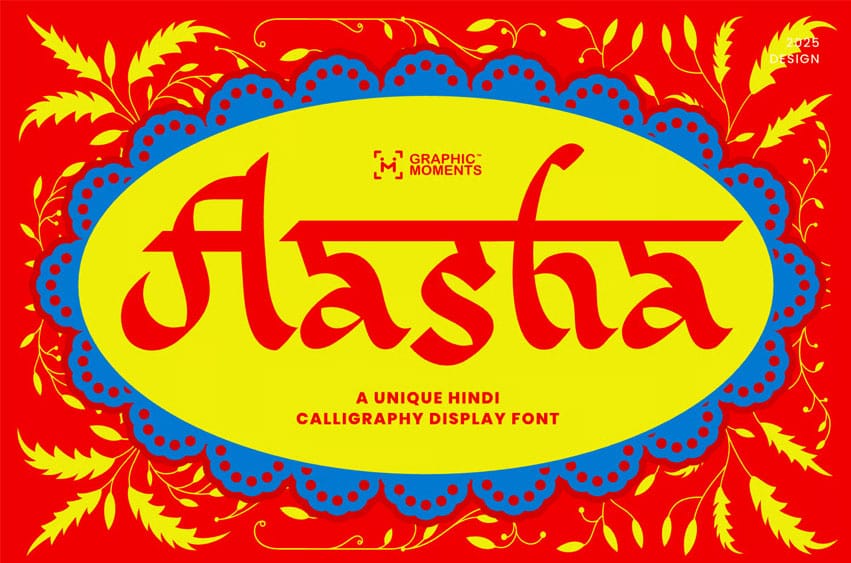
Aasha Font A Festive Hindi Calligraphy Font Inspired by Indian Tradition. Aasha is a beautifully crafted Hindi-style display font that blends traditional Indian calligraphy with modern artistic flair. Inspired by the timeless beauty of Devanagari and Devnagri scripts, Aasha harmonizes the forms of Hindi, Marathi, Gujarati, Malayalam, and Telugu lettering into one elegant design. Its graceful curves and bold strokes radiate cultural warmth, making it perfect for Indian-themed branding, Bollywood titles, and festive invitations. Every detail of Aasha captures the artistic soul of India, celebrating its diversity and deep connection to Sanskrit and Hindu design aesthetics.
Radiating the joyful energy of Diwali and Deepavali celebrations, Aasha embodies both spirituality and festivity. The font’s expressive style evokes the essence of Indian artistry — vibrant, sacred, and full of life. Whether you’re designing for cultural events, packaging, or editorial projects, Aasha brings a touch of Indian heritage and festive charm to every composition. It’s more than a font — it’s a visual celebration of faith, tradition, and creativity from the heart of India.